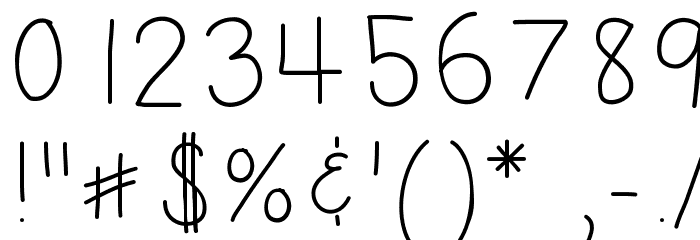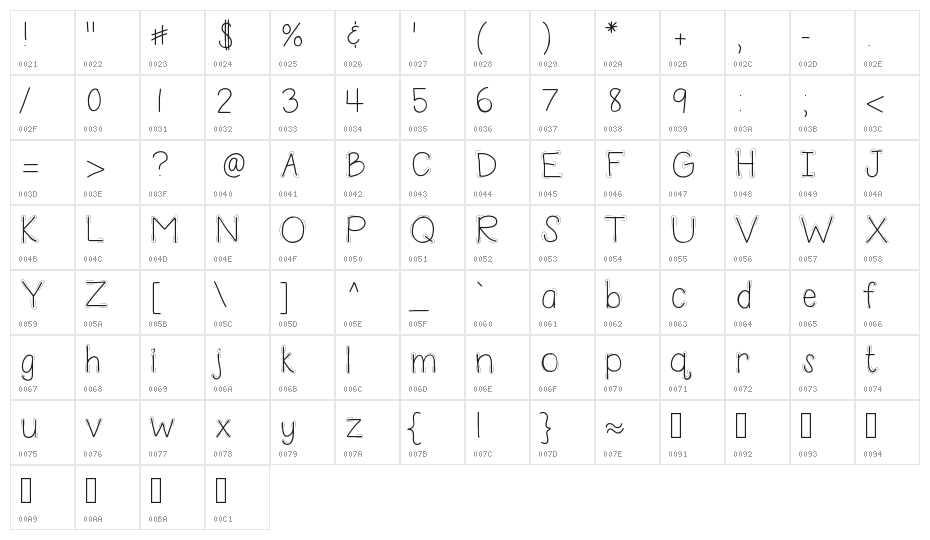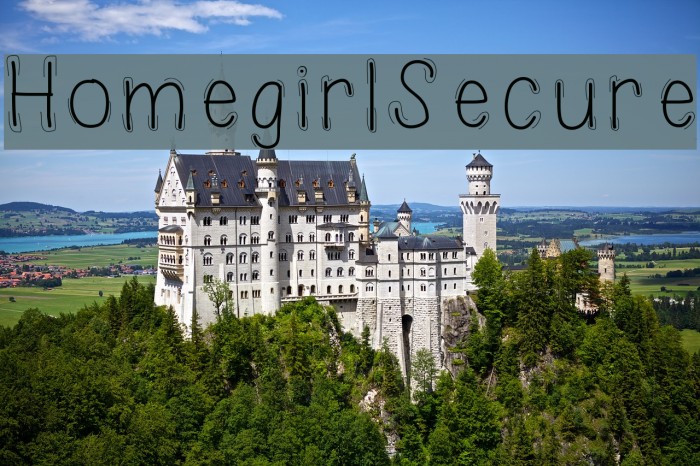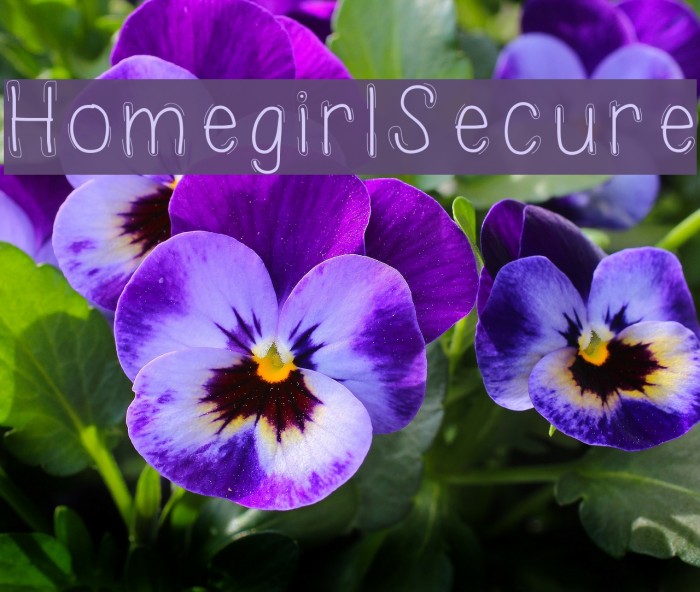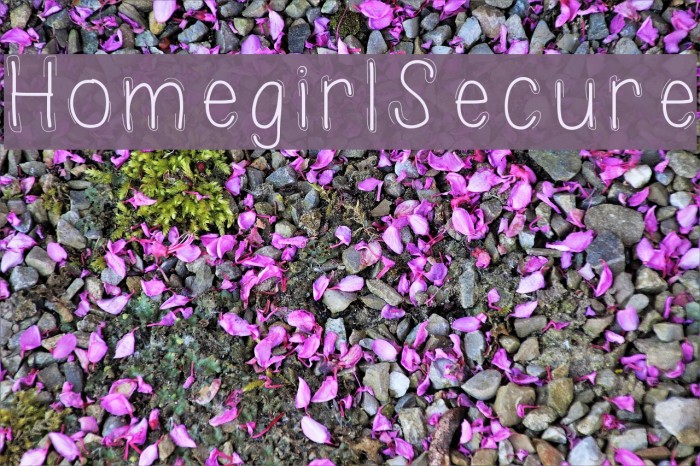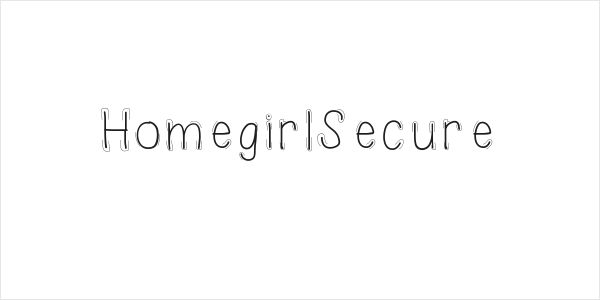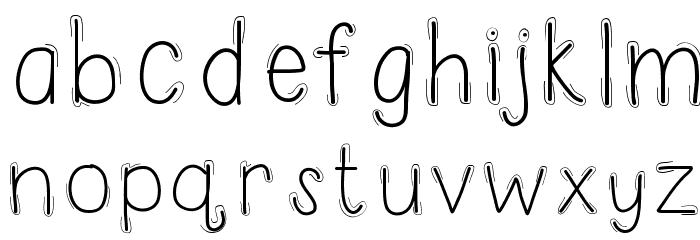
HomegirlSecure Font
HomegirlSecure Description
This playful and whimsical font features a unique outline style that gives it a hand-drawn appearance. The characters are slightly irregular, adding to its charm and informal feel. The uppercase and lowercase letters maintain a consistent style, with rounded edges and a casual flair. Numbers and special characters follow the same design, ensuring a cohesive look across all text. This font's distinctiveness makes it ideal for creative projects where a fun and approachable aesthetic is desired.
| Overall Style | Whimsical, Playful |
| Proposed Projects | Ideal for children's books, greeting cards, playful branding, and creative posters. |